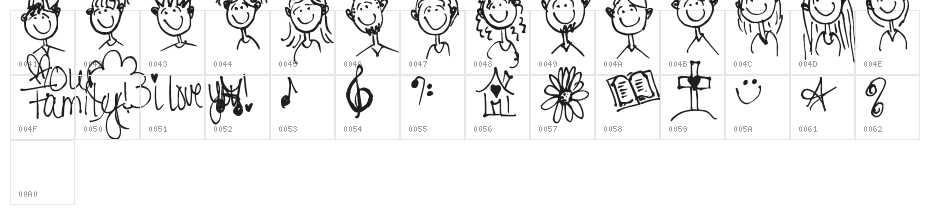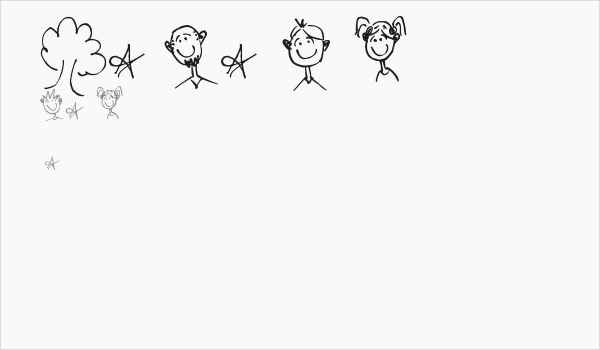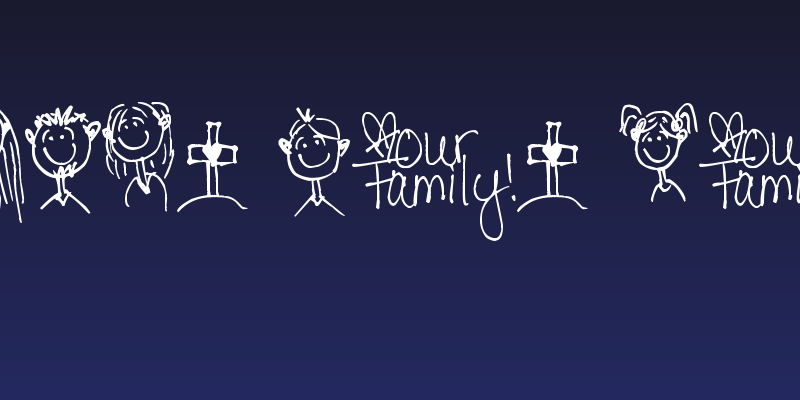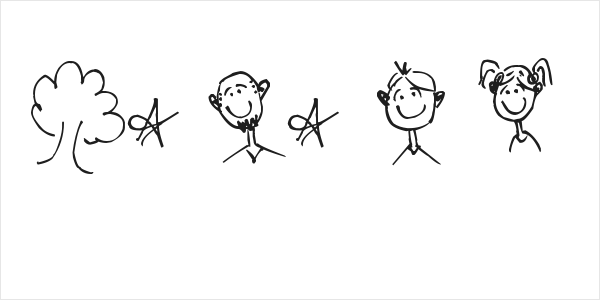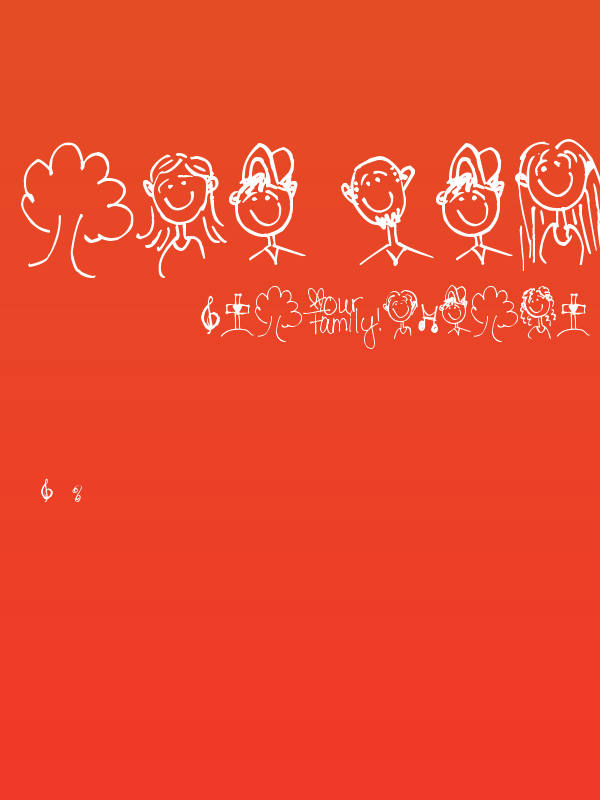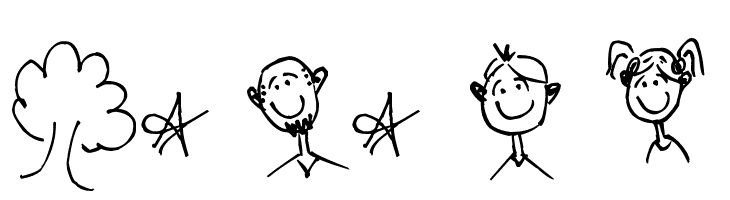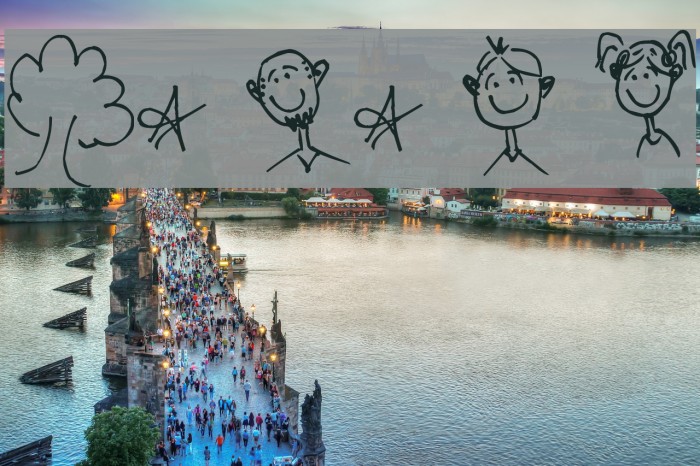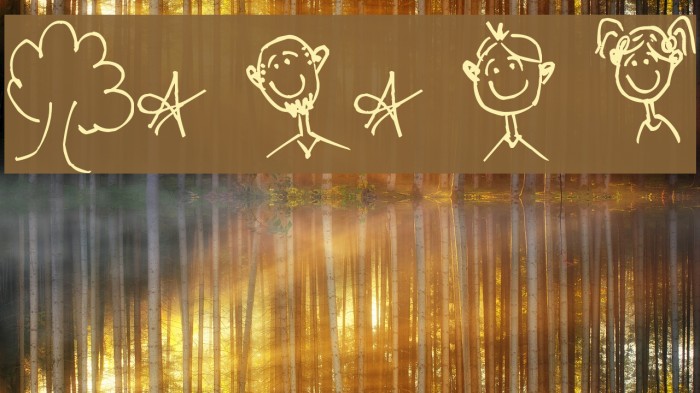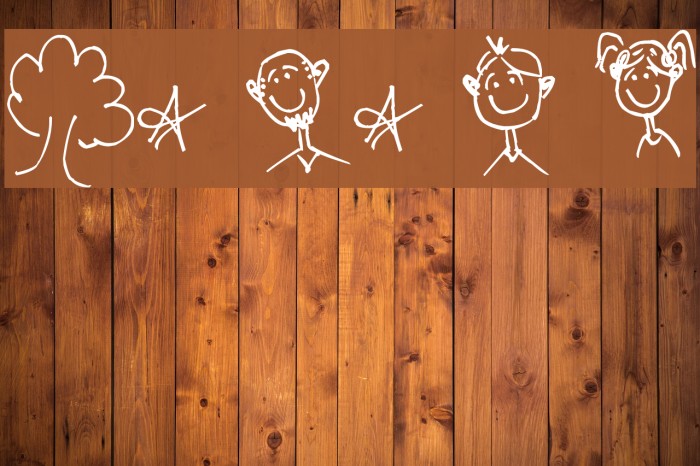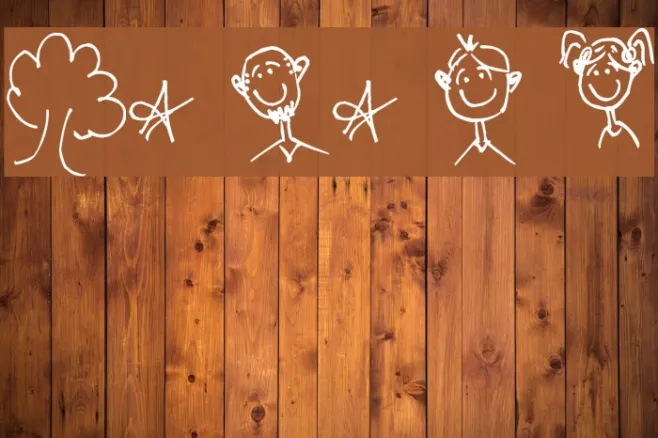
Pea Family Joy Doodles Font
Pea Family Joy Doodles Description
This is a playful and whimsical doodle-style design featuring hand-drawn stick figures and various fun elements. The design includes cheerful faces with different hairstyles, conveying a sense of family and joy. Alongside the figures are playful doodles such as musical notes, flowers, and hearts, adding to the lighthearted and creative feel. The overall style is informal and artistic, perfect for projects that require a personal and friendly touch. The design is not a traditional font but rather a collection of doodles and illustrations.
| Overall Style | Whimsical, Playful, Artistic |
| Use Case | Illustrations, Decorative elements, Branding |
| Proposed Projects | Ideal for greeting cards, children's book illustrations, family-themed projects, and playful branding. |